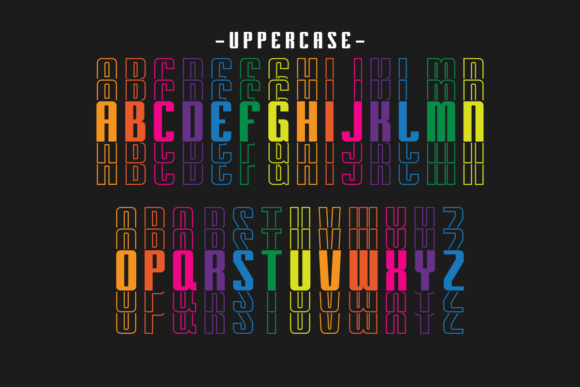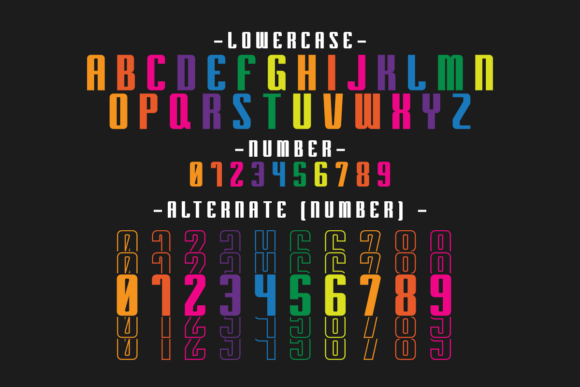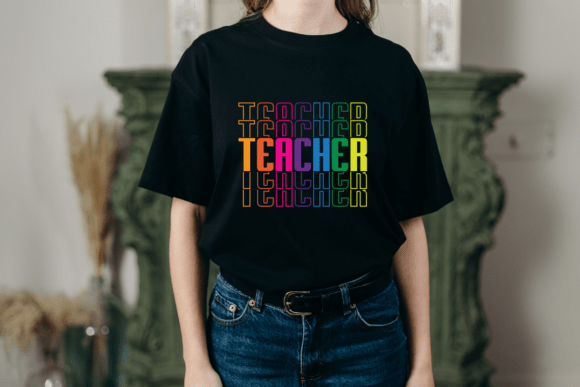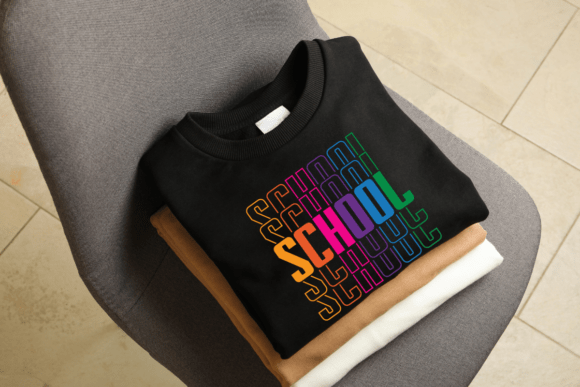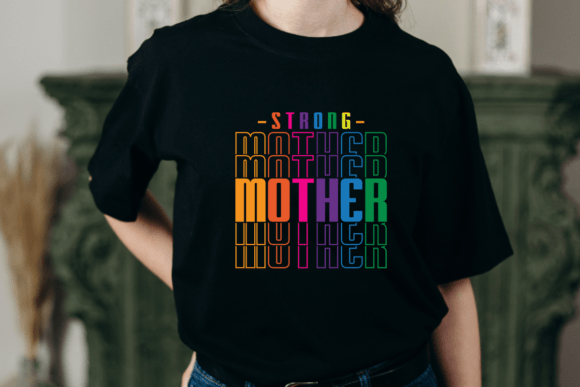
Unleash Vibrant Creativity with Educate Font
Are you looking for a font that can add a modern, energetic, and engaging touch to your educational or inspiring designs? Look no further than Educate, a dynamic stacked display font that’s perfect for making your message pop! With its unique layered effect and bold, colorful outlines, Educate is ideal for creating eye-catching posters, presentations, social media graphics, or merchandise that demands attention.
What Makes Educate Font Special?
Educate font is designed to help you unleash your vibrant creativity and create designs that inspire and engage. Its unique stacked effect gives it a 3D appearance, making it perfect for adding a playful yet powerful presence to your designs. The font’s bold, colorful outlines add a modern and energetic touch, making it ideal for educational or inspiring designs.
Educate font is perfect for a variety of designers and crafters, including:
- Etsy Sellers: If you’re an Etsy seller looking to create unique classroom decor, educational resources, or personalized learning tools, Educate font is a great choice. Its playful yet powerful presence will help your products stand out and attract attention.
- Cricut Users: Cricut users will love Educate font for designing custom school apparel or motivational items. The font’s bold, colorful outlines will make your designs pop and add a modern touch to your projects.
- Print-on-Demand Businesses: If you’re running a print-on-demand business offering uplifting products, Educate font is a great addition to your design toolkit. Its unique layered effect and bold outlines will help your products stand out and attract attention.
- Sublimation Artists: Sublimation artists will love Educate font for its distinctive and impactful typeface. The font’s bold, colorful outlines will make your designs pop and add a modern touch to your products.
With Educate font, the design possibilities are endless. You can use it to create:
- Eye-catching Posters: Create posters that grab attention and inspire your audience. Educate font is perfect for creating motivational posters, educational posters, or event posters.
- Engaging Presentations: Add a modern and energetic touch to your presentations with Educate font. Its unique layered effect and bold outlines will make your presentations stand out and engage your audience.
- Social Media Graphics: Create social media graphics that pop with Educate font. Its bold, colorful outlines will make your graphics stand out and attract attention.
- Merchandise: Use Educate font to create merchandise that demands attention. From custom school apparel to motivational items, Educate font is perfect for adding a playful yet powerful presence to your designs.
Why Choose Educate Font?
So why choose Educate font for your next design project? Here are just a few reasons:
- Unique Design: Educate font has a unique layered effect that gives it a 3D appearance. Its bold, colorful outlines add a modern and energetic touch to your designs.
- Versatile: Educate font is versatile and can be used for a variety of design projects, from educational materials to inspiring designs.
In conclusion, Educate font is a dynamic stacked display font that’s perfect for making your message pop. Its unique layered effect and bold, colorful outlines add a modern and energetic touch to your designs. Whether you’re an Etsy seller, Cricut user, print-on-demand business, or sublimation artist, Educate font is a great choice for adding a playful yet powerful presence to your designs. So why wait? Unleash your vibrant creativity with Educate font and take your designs to the next level!